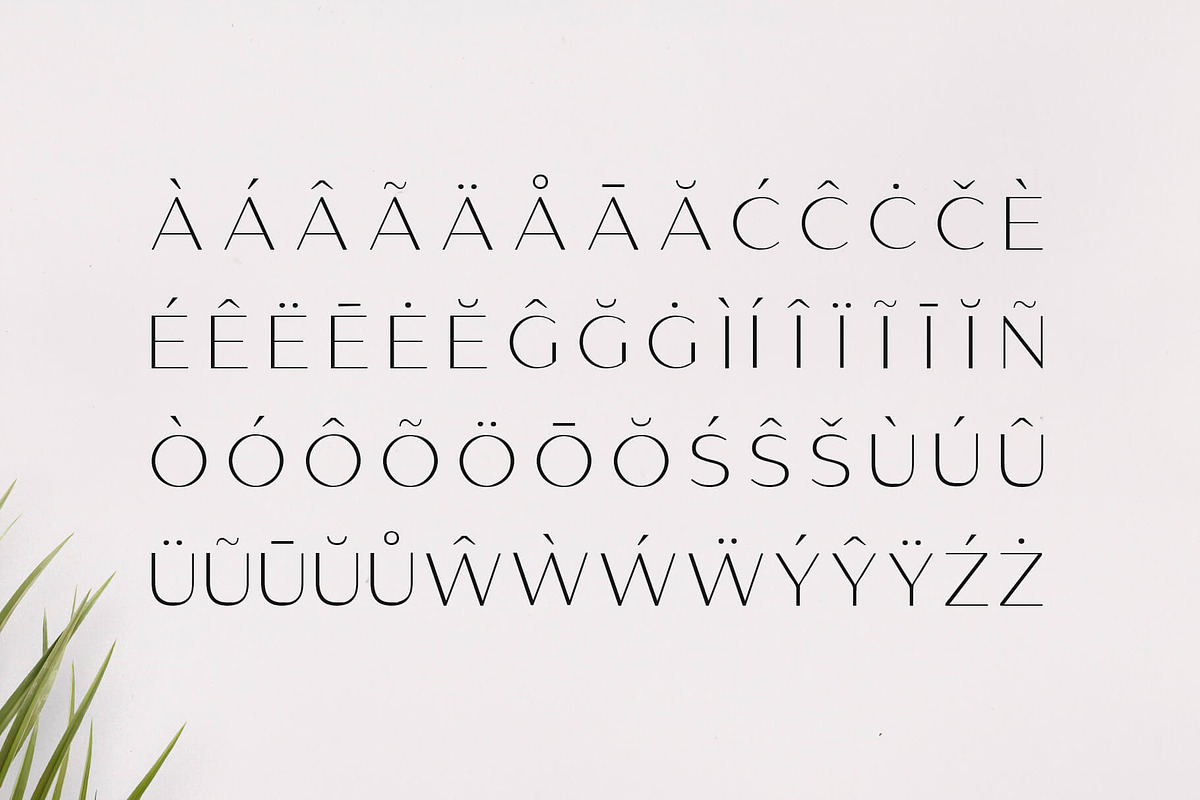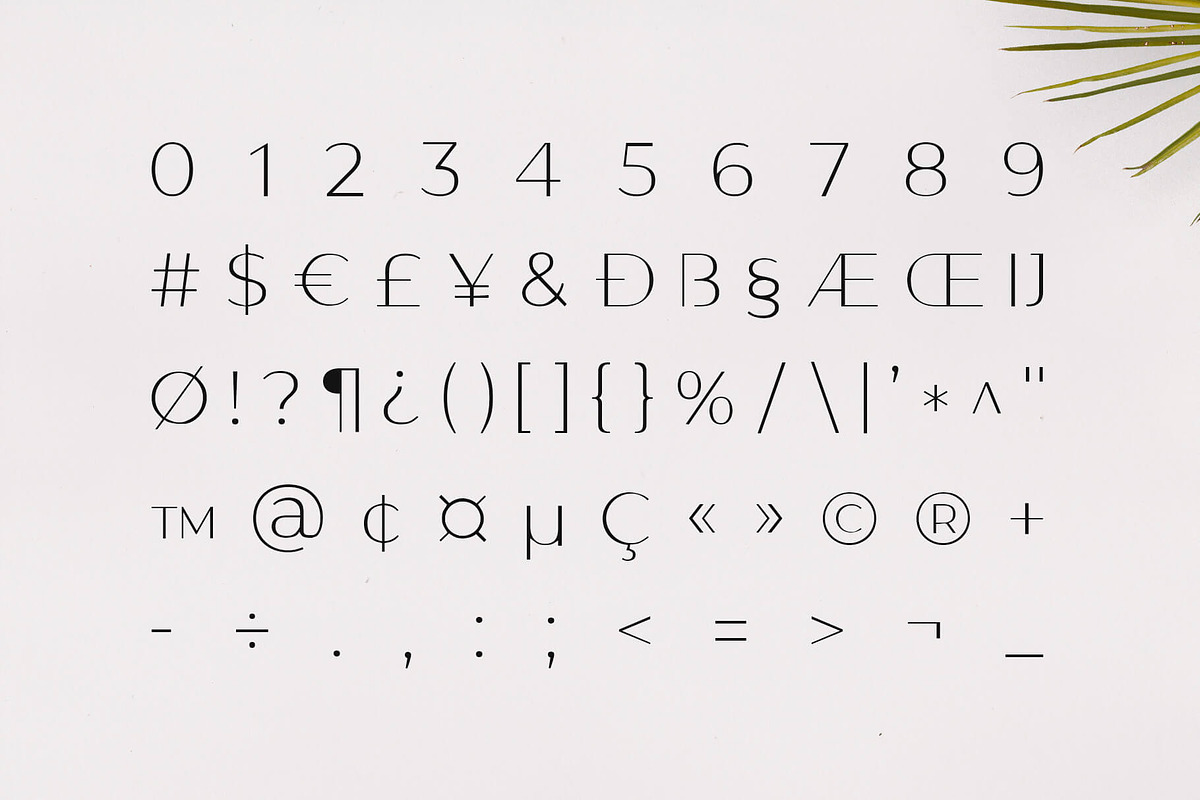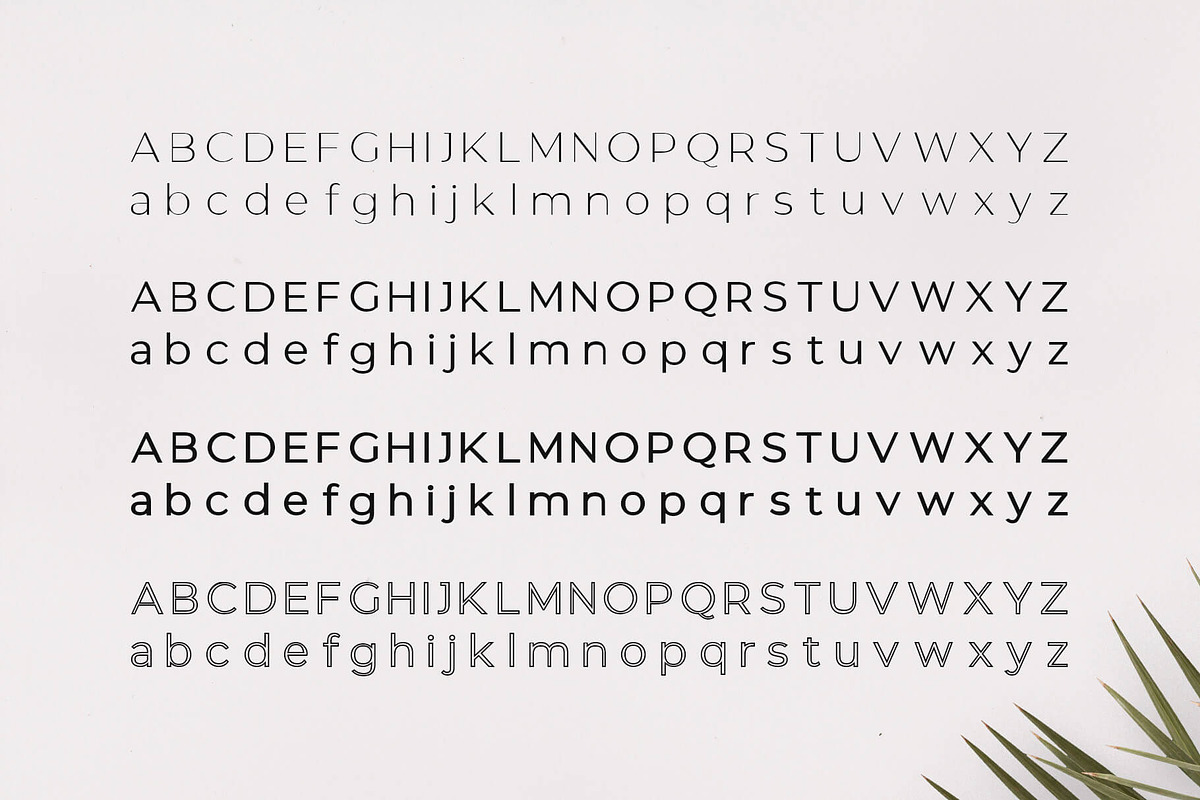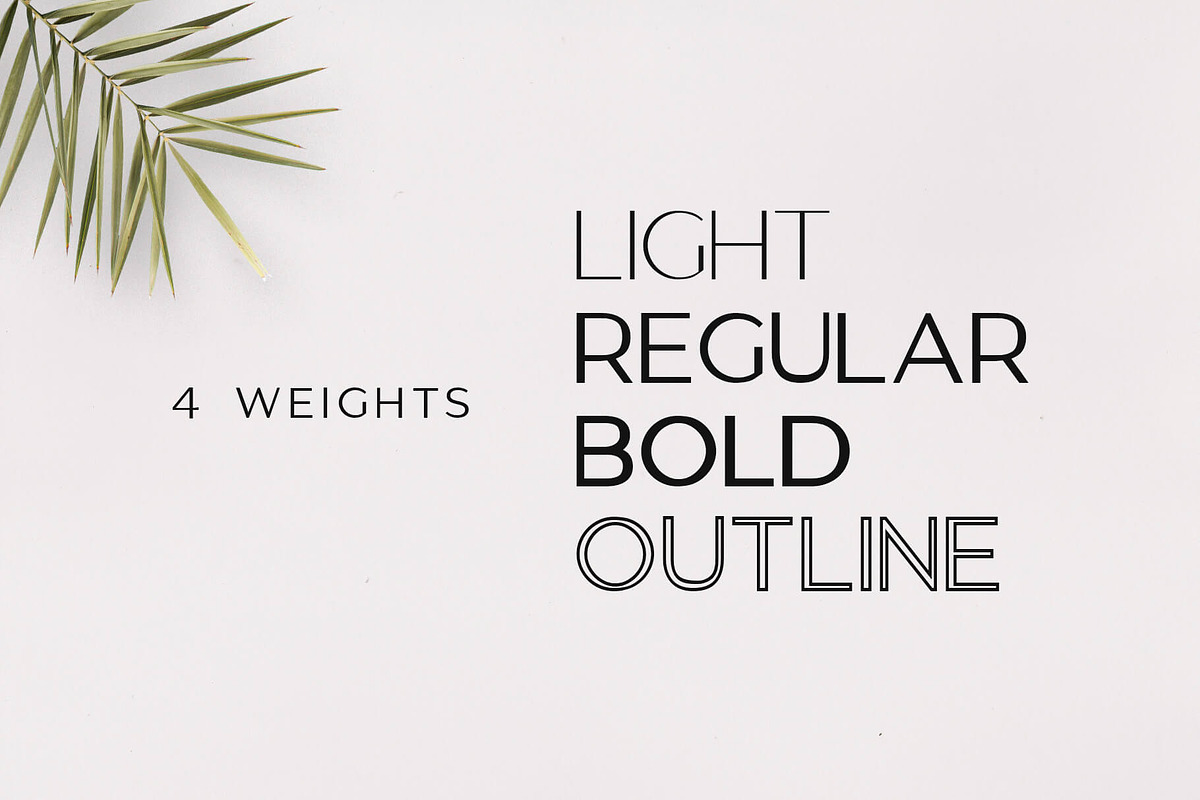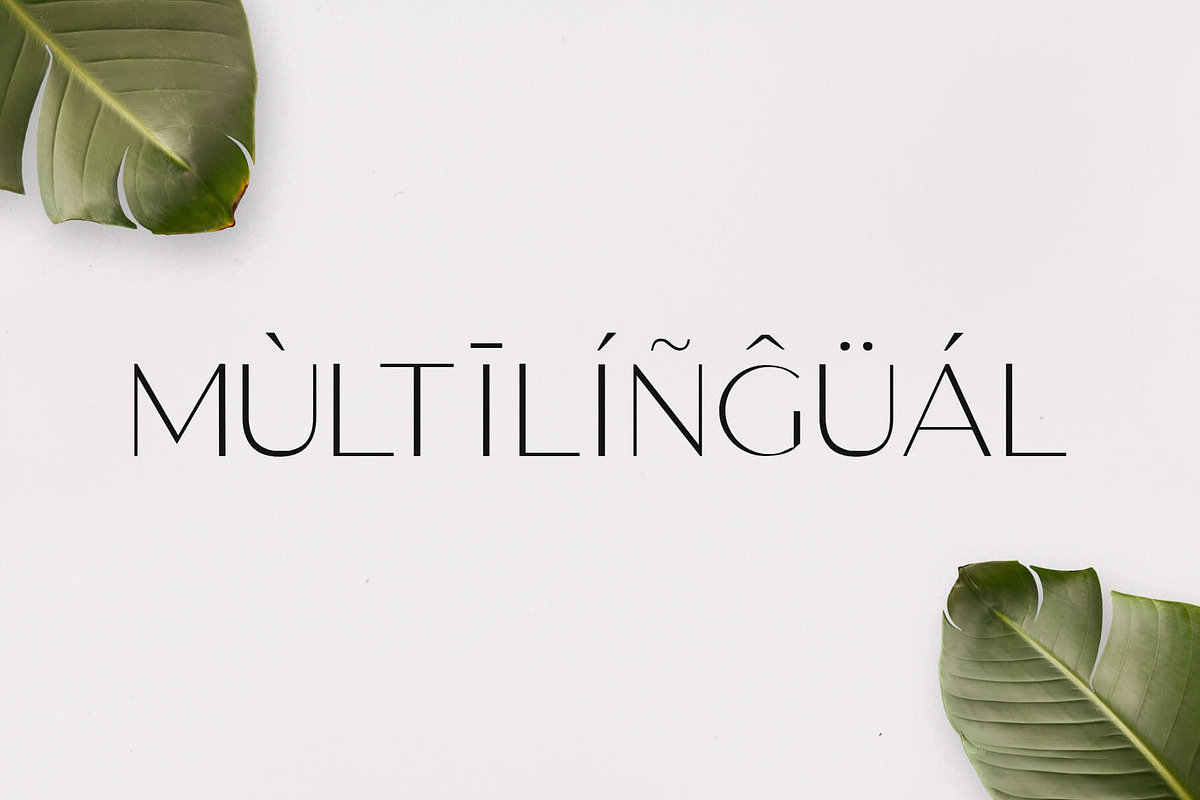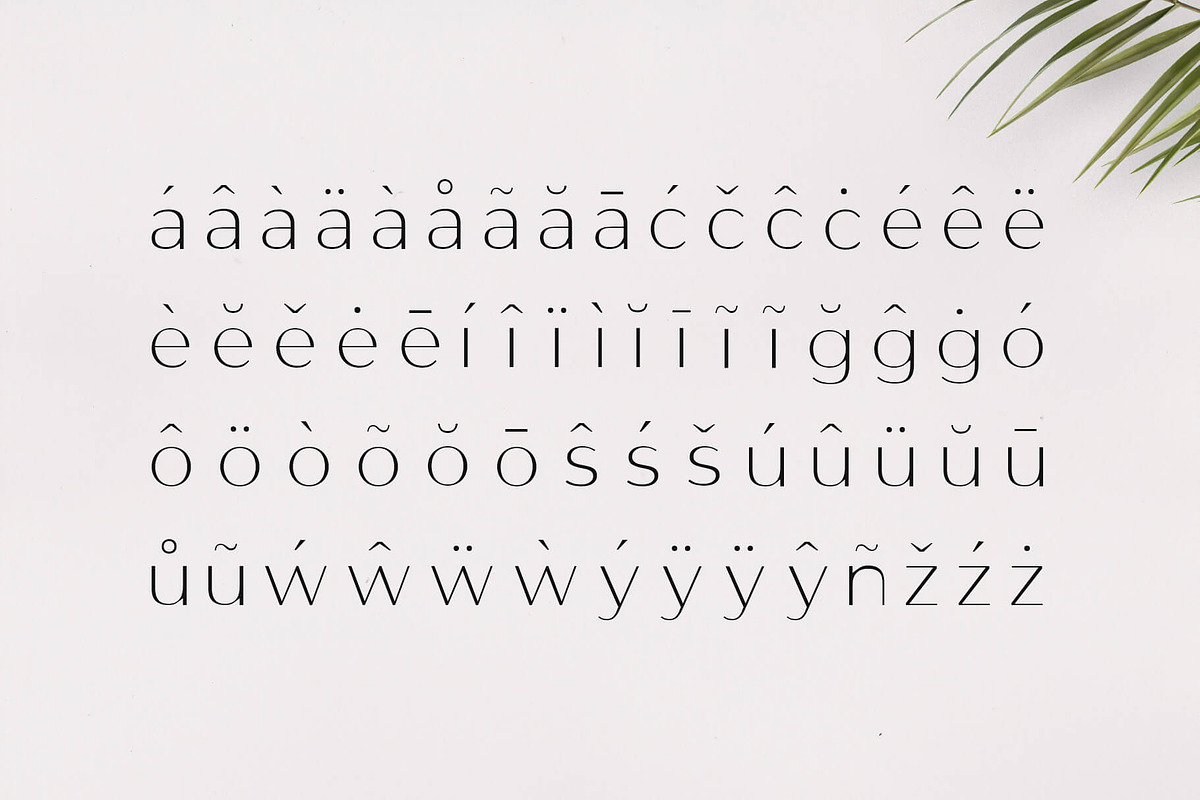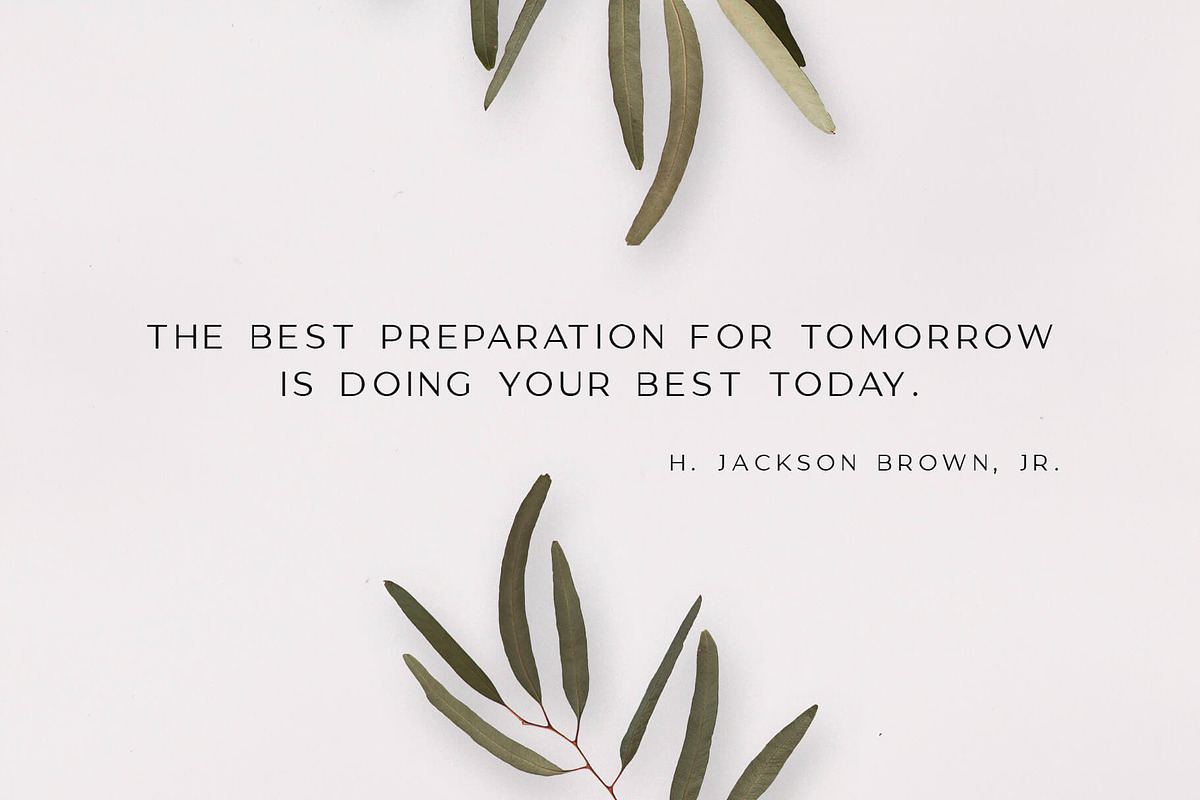
Gantic Font Family - Sans Serif
Gantic is an elegant and clean sans serif font. It’s a versatile font family designed for strong, classic branding. Gantic is perfect for any branding, logos, magazines, videos, weddings, quotes, print, product packaging, website, clothing designs and much more.
Multilingual (Foreign language characters)
- FEATURES Uppercase letters Lowercase letters Numbers Punctuation Symbols Accented characters Light Regular Bold Outline Multilingual (Foreig
- GANTIC Light
- GANTIC Regular
- GANTIC Bold
- GANTIC Outlines